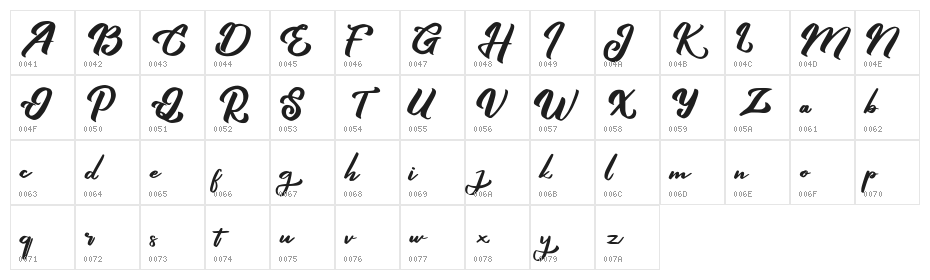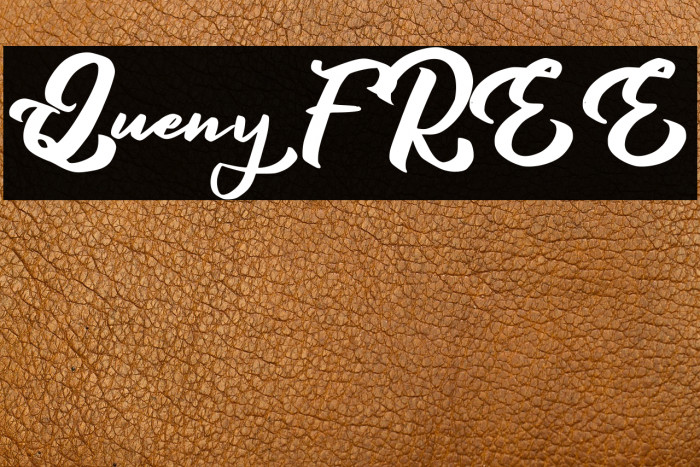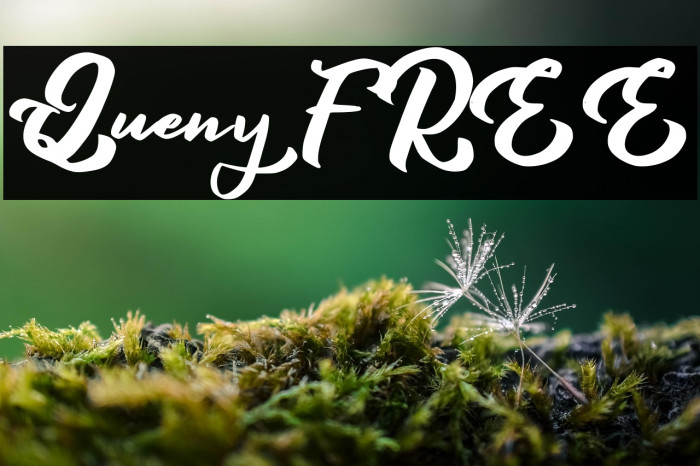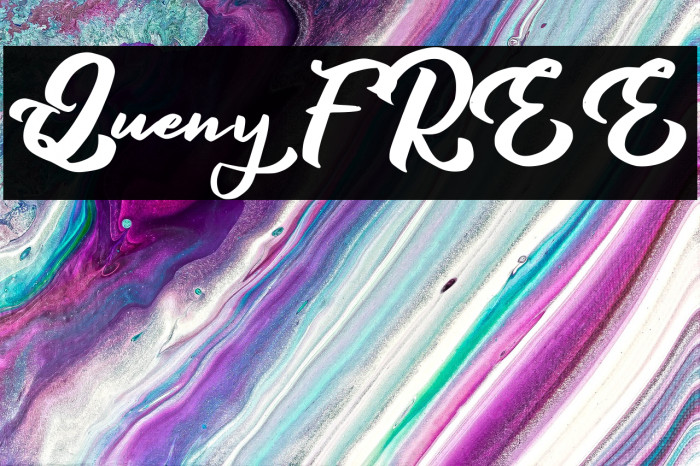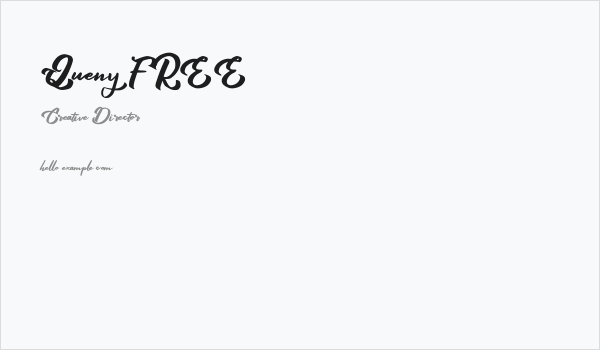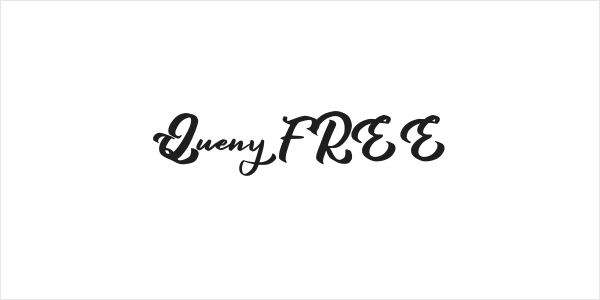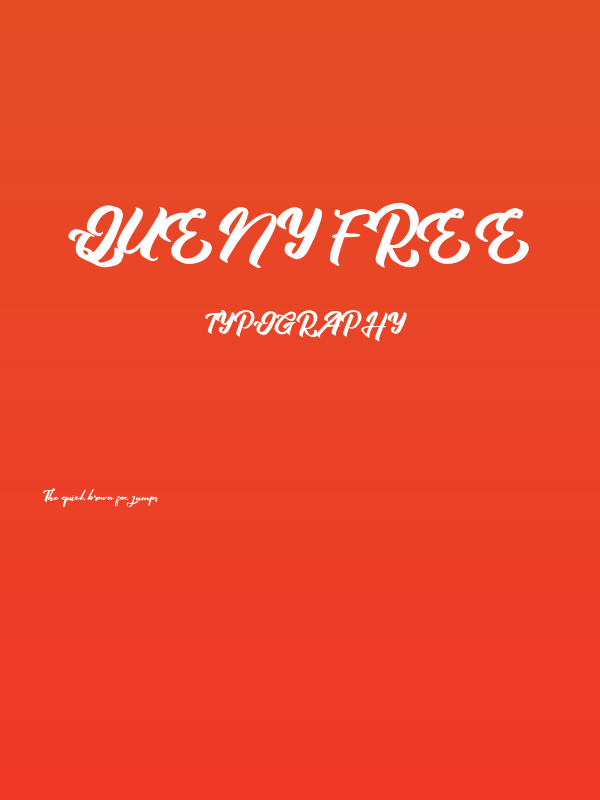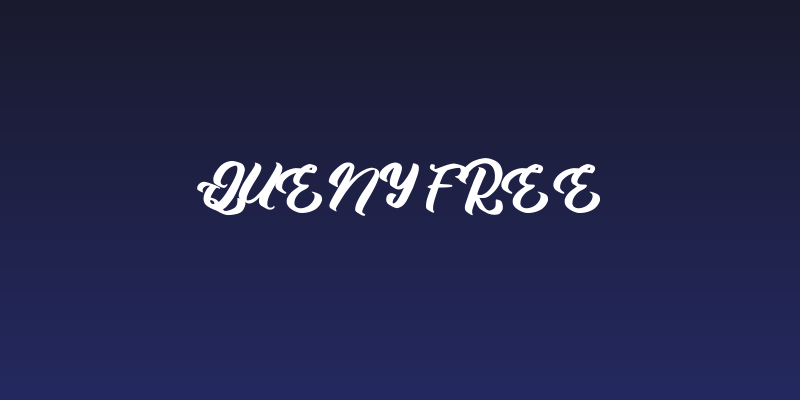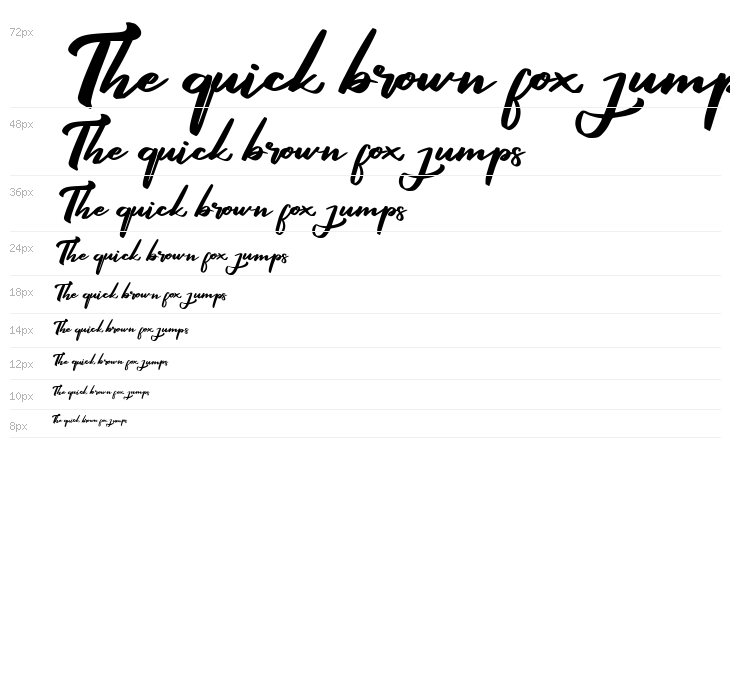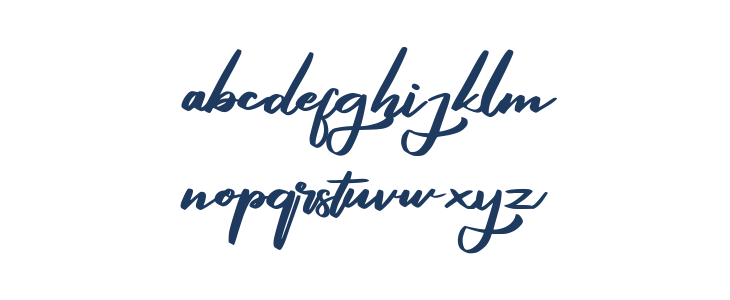
Queny FREE Font
Queny FREE Description
This font features an elegant and flowing script style, characterized by its smooth, cursive strokes and a harmonious blend of thick and thin lines. The uppercase letters exhibit a graceful flair, with sweeping curves and loops that add a touch of sophistication. The lowercase letters maintain a consistent rhythm, with elongated ascenders and descenders that enhance its fluidity. The overall design is both dynamic and refined, making it suitable for creative and expressive projects. Its artistic nature is complemented by a moderate contrast in stroke thickness, providing a balanced and visually appealing appearance.
Use CaseLogos, Invitations, Decorative text
Proposed ProjectsIdeal for wedding invitations, greeting cards, branding, and logo design.